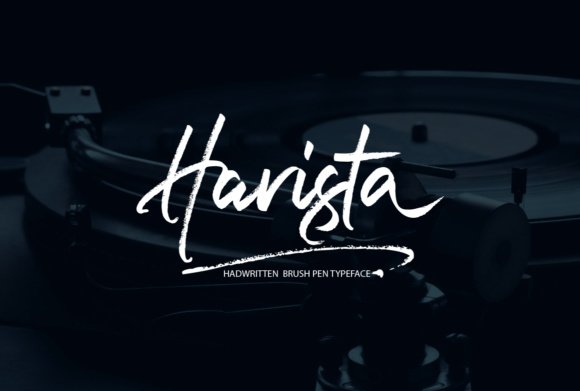
Discover the Magic of Handwritten Typography
Have you ever sat at your desk, pen in hand, and let your creativity flow onto the page? The scratch of the pen, the swirl of the letters, and the uniqueness of every stroke – it’s a feeling that’s hard to replicate with digital tools. For designers, this tactile experience is a reminder of the power of handwritten typography.
Enter Harista Script Font, a beautiful handwritten font crafted with a brush pen. Its signature style is perfect for branding projects, invitations, logos, and much more. With Harista Script Font, designers can add a touch of personality and whimsy to their work, making it stand out in a crowded market.
Key Features of Harista Script Font
- Font Type: Script Font, ideal for creative and elegant designs
- Unique Characteristics: Distinctive, handwritten feel with flowing connections and subtle flair
Harista Script Font Review
As a designer, I was excited to dive into the world of Harista Script Font, a beautiful script font that’s perfect for adding a touch of elegance to any project. Here’s my honest review of what works well and what doesn’t:
- The fluid, connected strokes of the font create a seamless reading experience.
- The elegant swashes and flourishes add a touch of sophistication to any text.
- The font is highly customizable, with a range of options for color, size, and spacing.
- The font is well-suited for a variety of applications, from wedding invitations to branding materials.
- The font may not be ideal for projects that require a more modern or minimalist aesthetic.
- The font can be quite ornate, which may make it difficult to read at smaller font sizes.
- The font is not as versatile as some other script fonts, and may not be suitable for projects that require a more flexible font.
Overall, I think Harista Script Font is a beautiful and elegant font that’s perfect for adding a touch of sophistication to any project. While it may have some limitations, I think it’s a great choice for designers who are looking for a high-end script font. Just be aware of the potential limitations, and use it in the right context.
Tips for Getting the Most Out of Harista Script
Use Harista Script for titles, headings, and quotes to add a touch of elegance and sophistication to your designs.
Combine Harista Script with other fonts to create a unique and visually appealing font combination.
Alternatives to Harista Script Font
The Great Vibes Font is a beautiful, elegant script font that is perfect for creating a sense of luxury and sophistication. It is ideal for use in branding, packaging, and advertising materials where a high-end feel is desired.
Compared to Harista Script Font, Great Vibes Font has a more refined and polished look, making it suitable for formal occasions. While Harista Script Font has a more rustic feel, Great Vibes Font is more modern and sleek.
Litera Font
The Litera Font is a classic, elegant script font that is reminiscent of traditional calligraphy. It is perfect for use in wedding invitations, certificates, and other formal documents where a touch of elegance is desired.
Compared to Harista Script Font, Litera Font has a more traditional and timeless look, making it suitable for formal events. While Harista Script Font has a more modern and playful feel, Litera Font is more refined and sophisticated.
The Alex Brush Font is a beautiful, handwritten script font that is perfect for creating a sense of warmth and personality. It is ideal for use in branding, packaging, and advertising materials where a friendly and approachable feel is desired.
Compared to Harista Script Font, Alex Brush Font has a more casual and relaxed look, making it suitable for informal occasions. While Harista Script Font has a more rustic feel, Alex Brush Font is more modern and playful.
What is the recommended font size for the Harista Script Font?
The recommended font size for the Harista Script Font varies depending on the application and desired visual effect. However, a general rule of thumb is to use font sizes between 18pt and 36pt for body text, and larger font sizes (up to 72pt) for headings and titles.